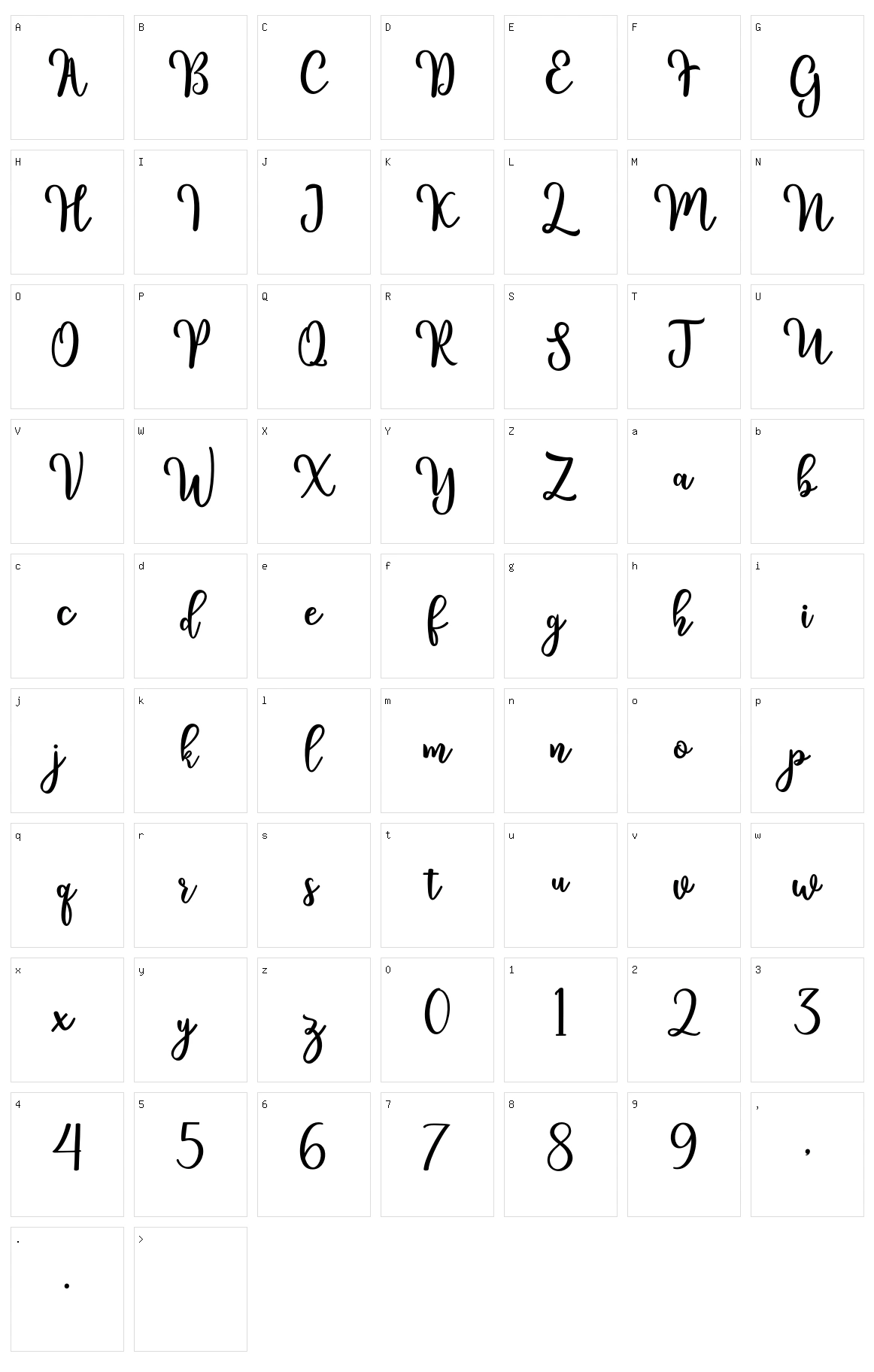
The free font Kinsley is carefully designed by Amarlettering - Takiy, showcasing a thoughtful balance of creativity and usability and falls under the Script font style. When you download the ZIP file, it contains only 42.56 KB of font files, making it lightweight and quick to download. Please review the license details below to understand permitted usage and distribution rights. If license information is not available, we recommend using this font for personal projects only or contacting the author directly for commercial usage permissions.